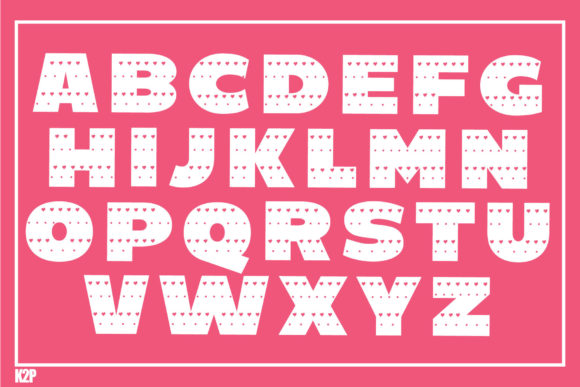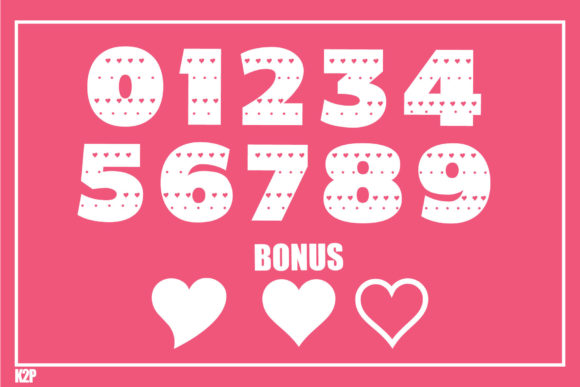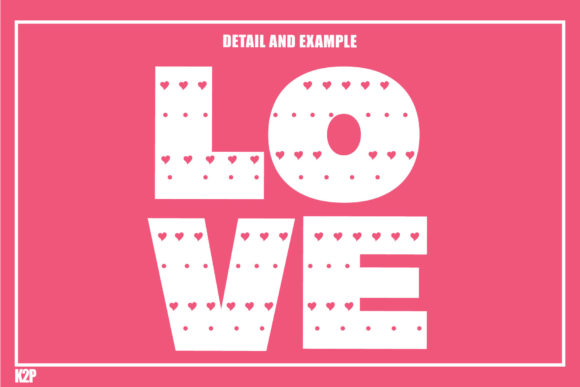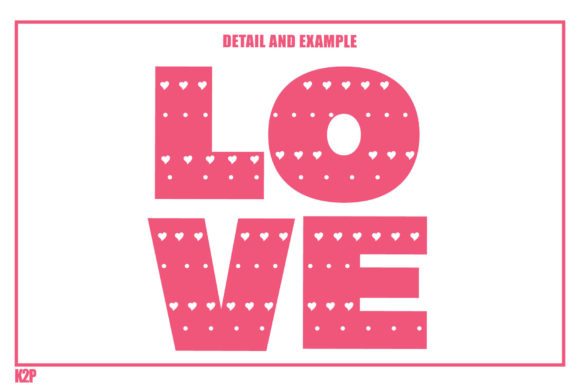
Introduction to Cute Cupid Font
Cute Cupid is a cute and friendly lettered display font that can be used for a variety of quotes or teaching material.
Its authentic look will add a personal and realistic feel to your designs .